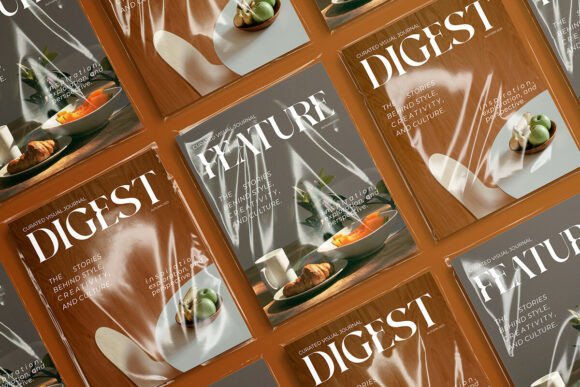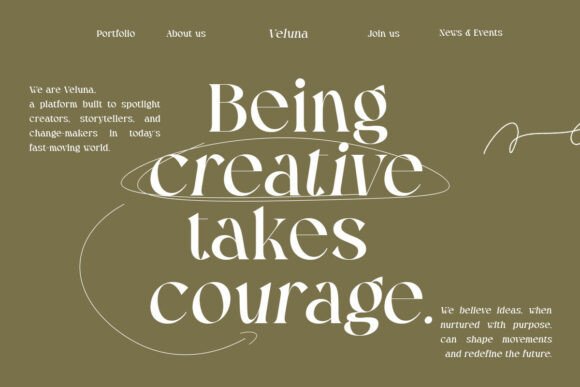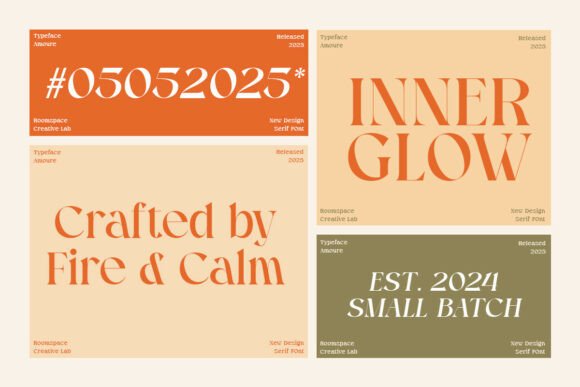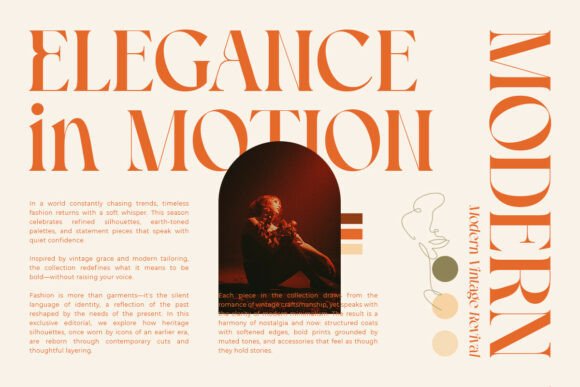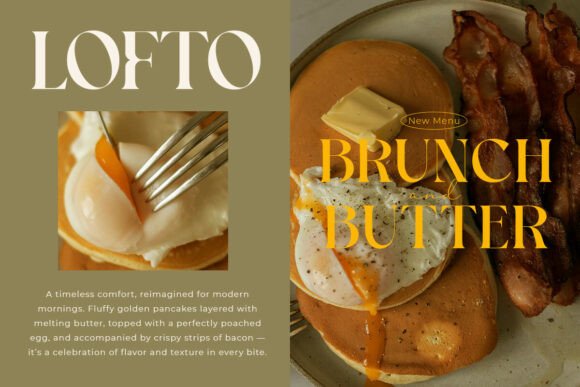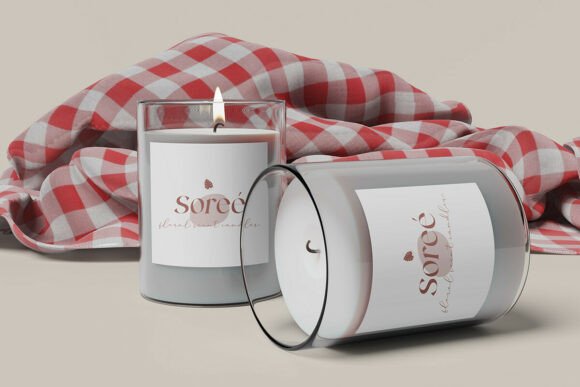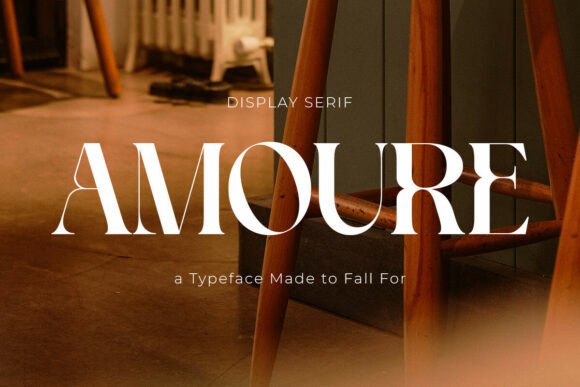
Introducing Amoure Font: Elevate Your Designs with Elegance and Romance
Are you a designer seeking to add a touch of sophistication and emotional depth to your visuals? Look no further than Amoure Font, a high-contrast display serif font that exudes elegance, refinement, and romantic charm. Inspired by the world of fashion editorials and timeless love stories, Amoure is the perfect typeface for those who want to create unforgettable designs that leave a lasting impression.
The Inspiration Behind Amoure
Amoure Font is born out of a passion for the finer things in life. Its creator drew inspiration from the pages of fashion magazines, where elegant typography and beautiful storytelling come together to create a sense of luxury and refinement. The font is also influenced by the world of romance, where love letters and vintage wedding invitations evoke a sense of nostalgia and sentimentality. The result is a typeface that embodies the perfect blend of sophistication, elegance, and emotional depth.
Design Characteristics of Amoure
Amoure Font boasts a range of distinctive design characteristics that set it apart from other typefaces. Its high-contrast serif design features:
- Graceful long serifs: Adding a touch of refinement and elegance to your designs
- Sculpted curves: Creating a sense of fluidity and movement
- Dramatic contrast: Adding depth and visual interest to your typography
Perfect for a Range of Design Applications
Amoure Font is incredibly versatile, making it suitable for a wide range of design applications. Some of the most popular uses for this elegant typeface include:
- Logos: Create a lasting impression with a custom logo that exudes sophistication and refinement
- Wedding invitations: Set the tone for a romantic and unforgettable celebration
- Magazine headlines: Grab the attention of your readers with bold, eye-catching typography
- Upscale packaging: Elevate your brand with luxurious and refined typography
Who Can Benefit from Amoure Font?
Amoure Font is perfect for designers and crafters who want to add a touch of elegance and sophistication to their work. This includes:
- Luxury brands: Create high-end visuals that reflect your brand’s values and aesthetic
- Personal bloggers: Elevate your online presence with refined and sophisticated typography
- Beauty product launches: Create a lasting impression with beautiful and elegant typography
Why Choose Amoure Font?
With so many typefaces to choose from, why should you choose Amoure Font? Here are just a few reasons why Amoure stands out:
- Unique and distinctive design: Amoure’s high-contrast serif design is unlike anything else on the market
- Elegant and sophisticated: Perfect for designers who want to create refined and luxurious visuals
- Emotional depth: Amoure’s romantic charm and nostalgic feel evoke a strong emotional response
Are you ready to take your designs to the next level with Amoure Font? With its elegant design, sophisticated charm, and emotional depth, this typeface is sure to become a staple in your design toolkit. Whether you’re working on a luxury brand campaign, a personal blog, or a beauty product launch, Amoure Font is the perfect choice for designers who want to create unforgettable visuals.